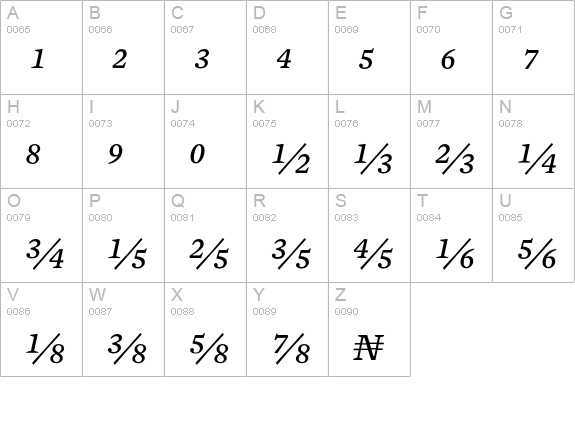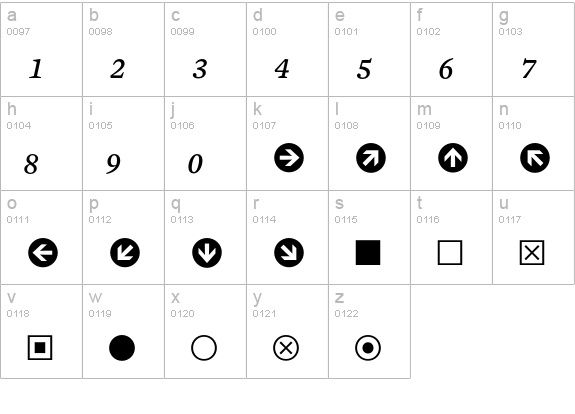
Mercury Numeric G2 Italic Font Details
Mercury Numeric G2 Italic is a distinctive, italic variant in the Mercury typeface family \xE2\x80\x94 well suited to design and typography projects.